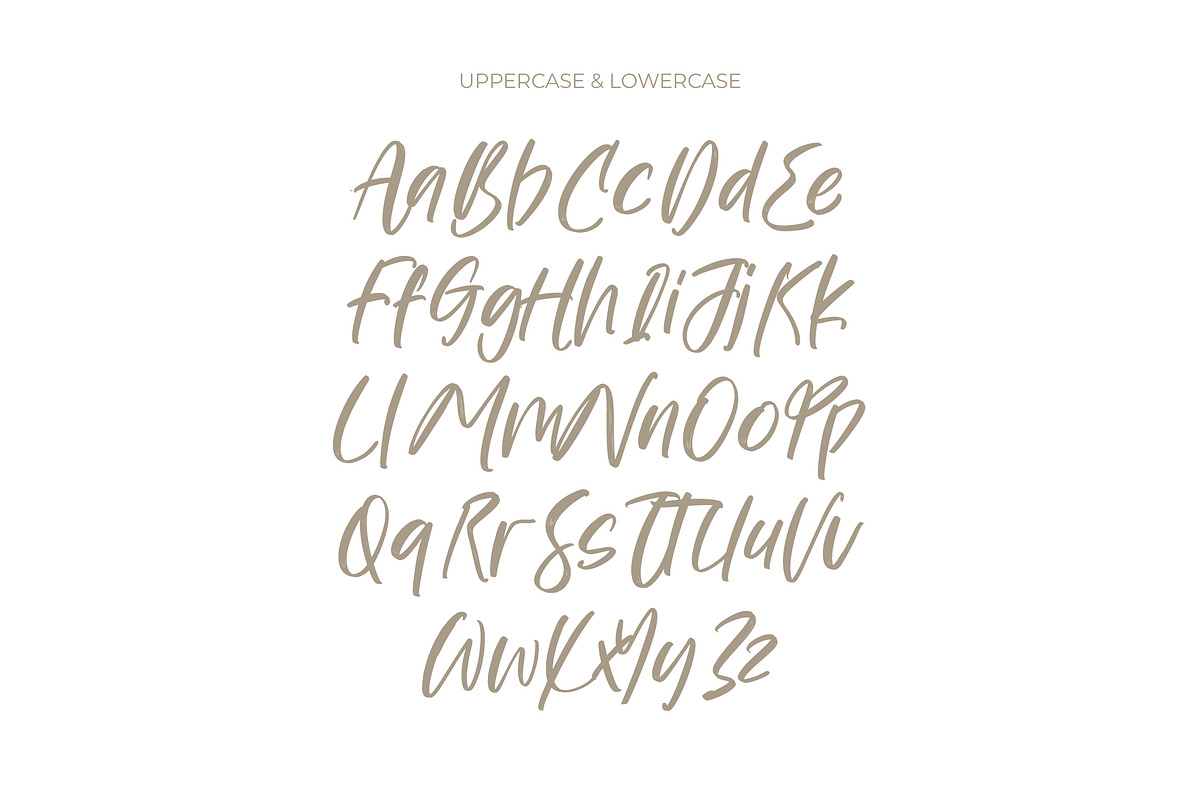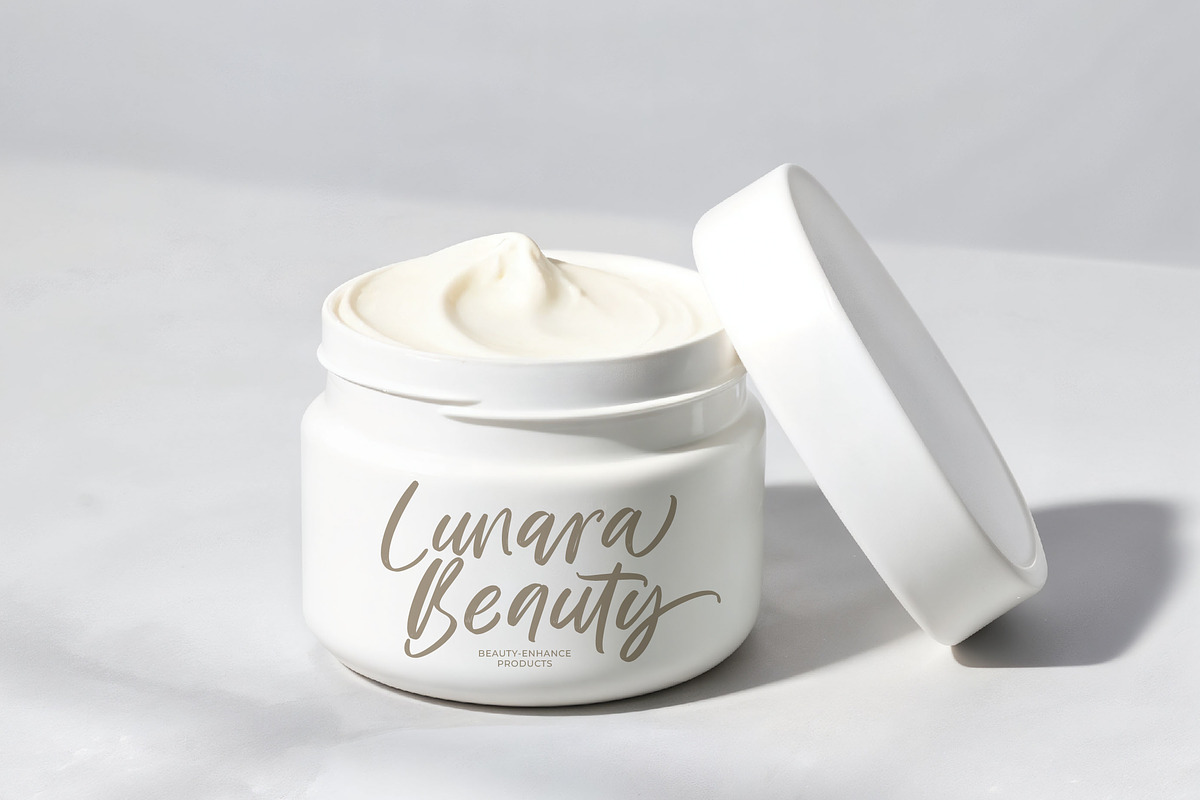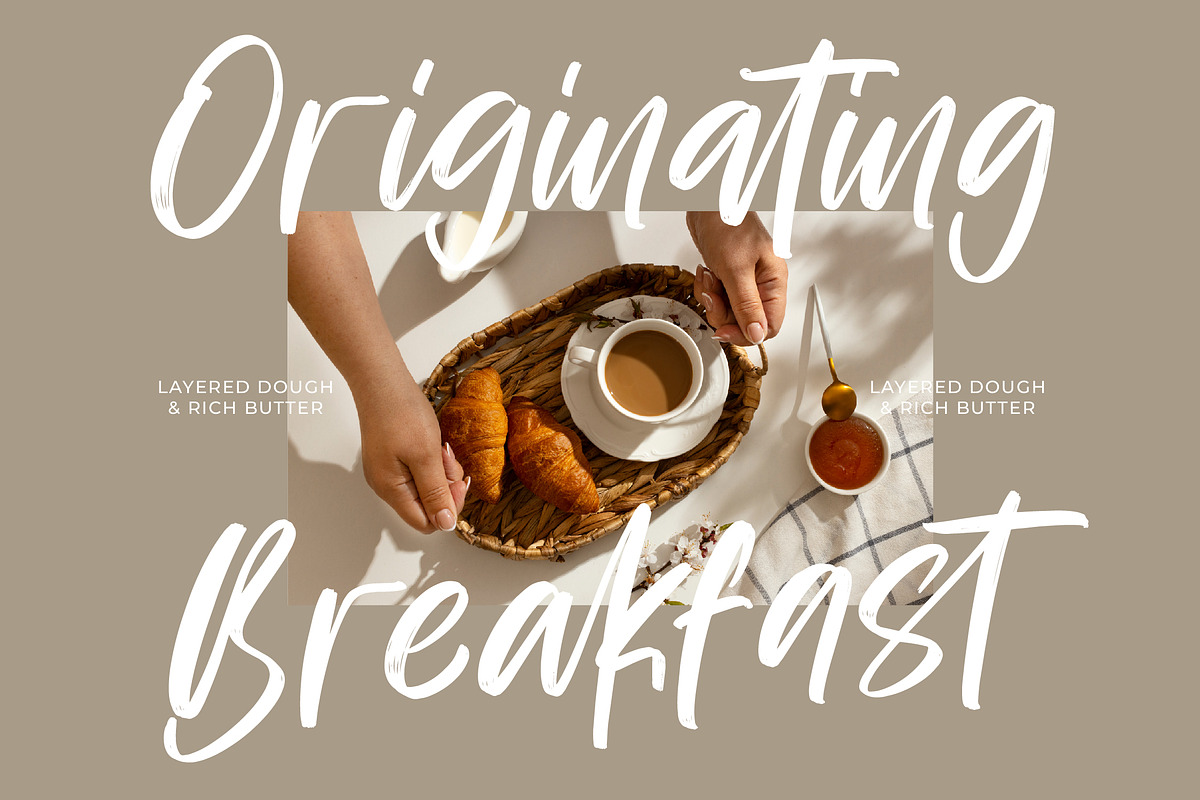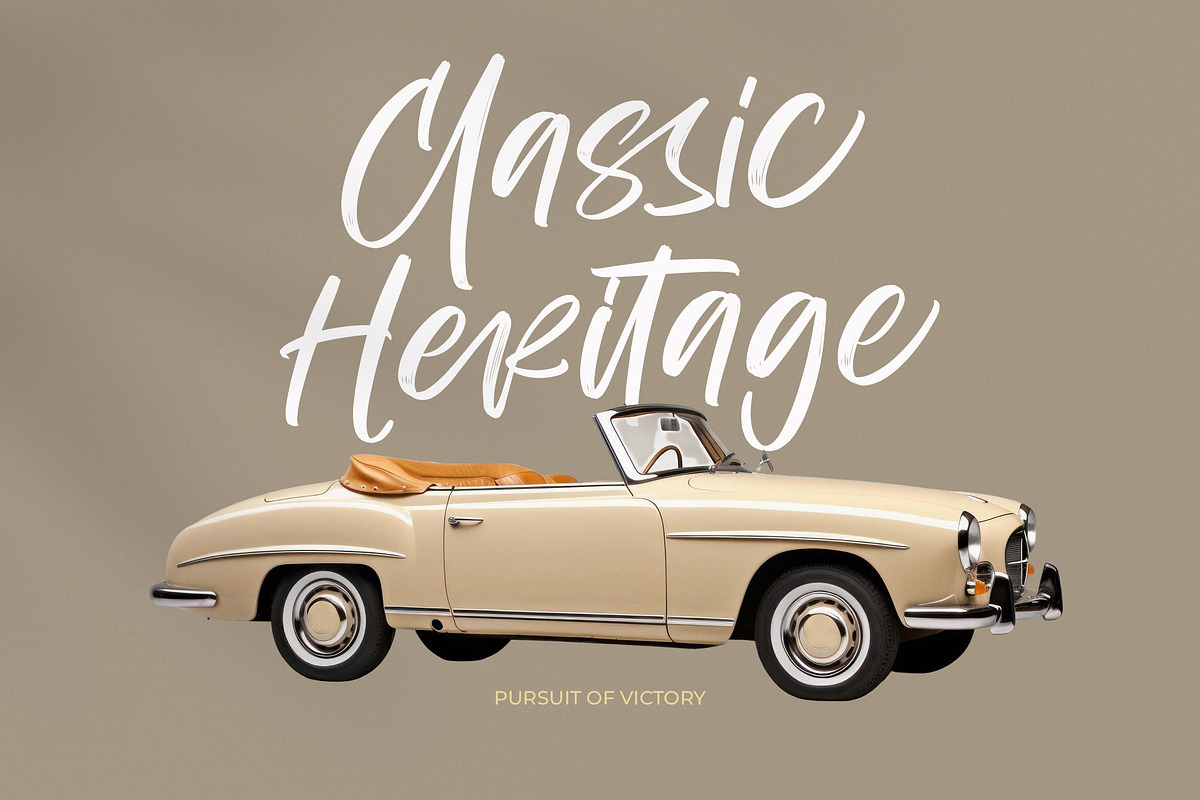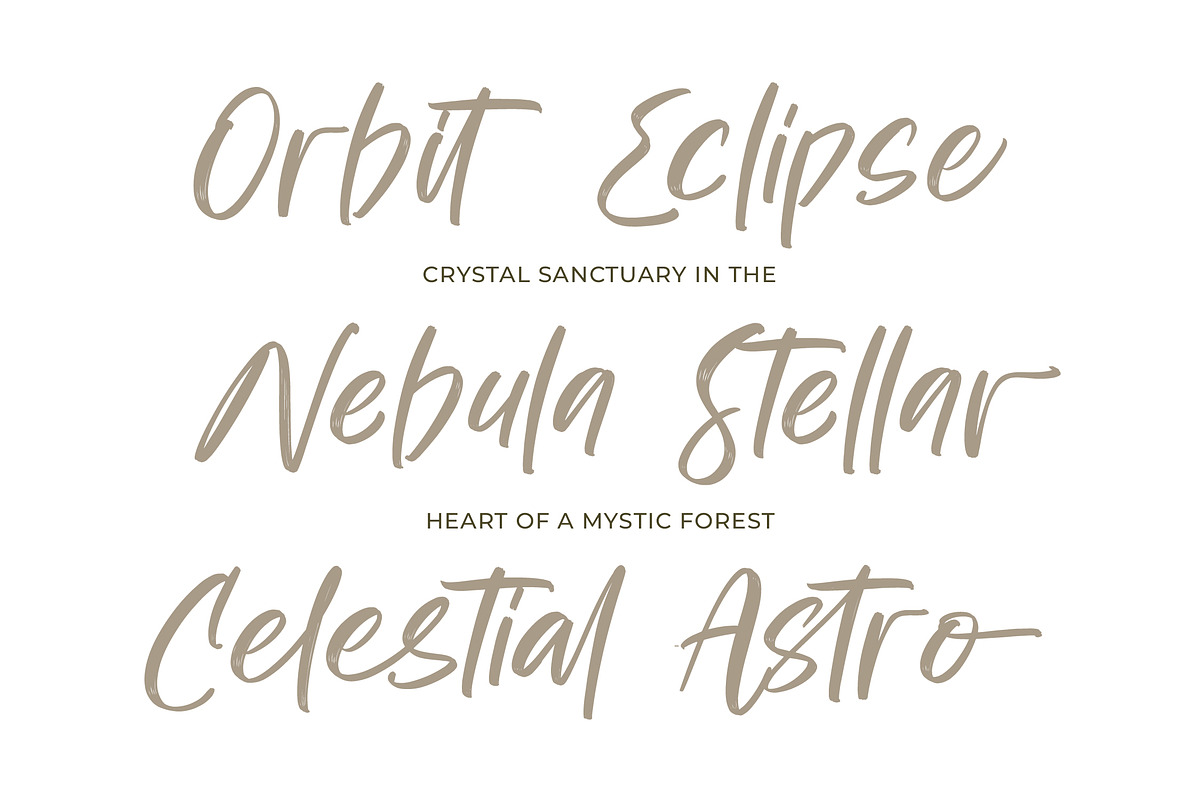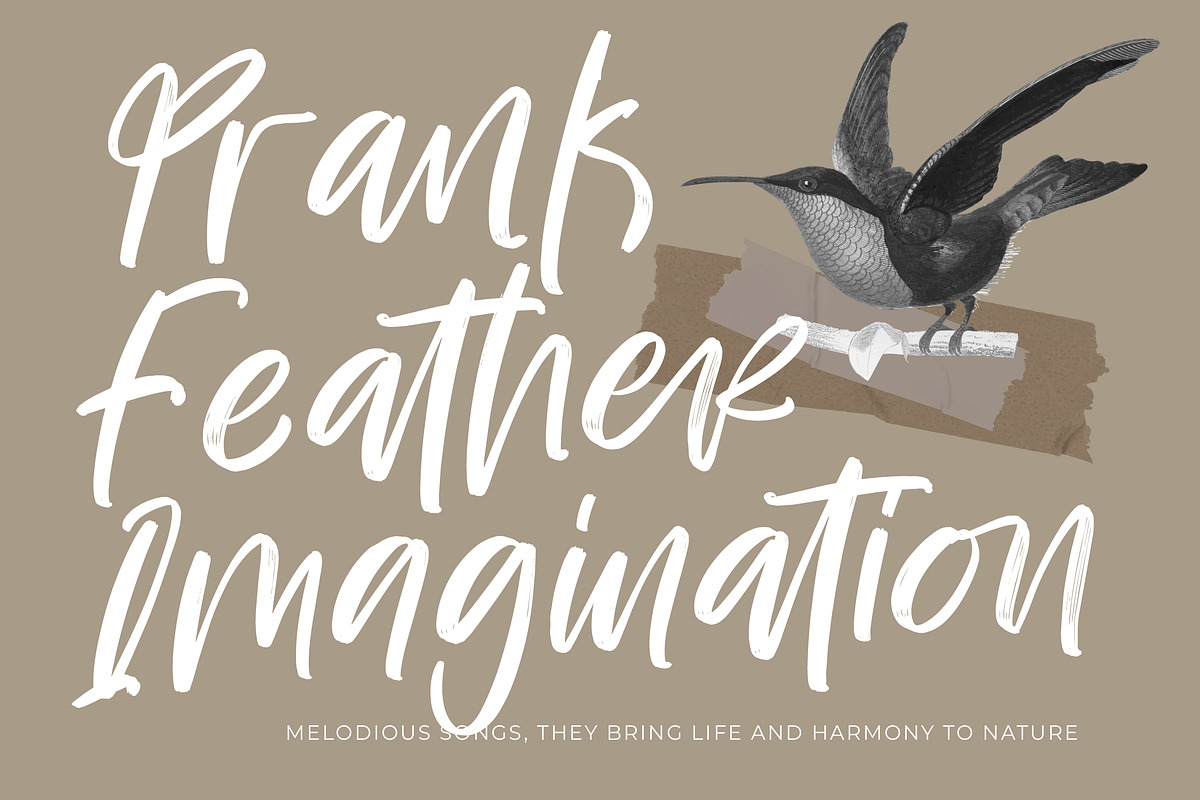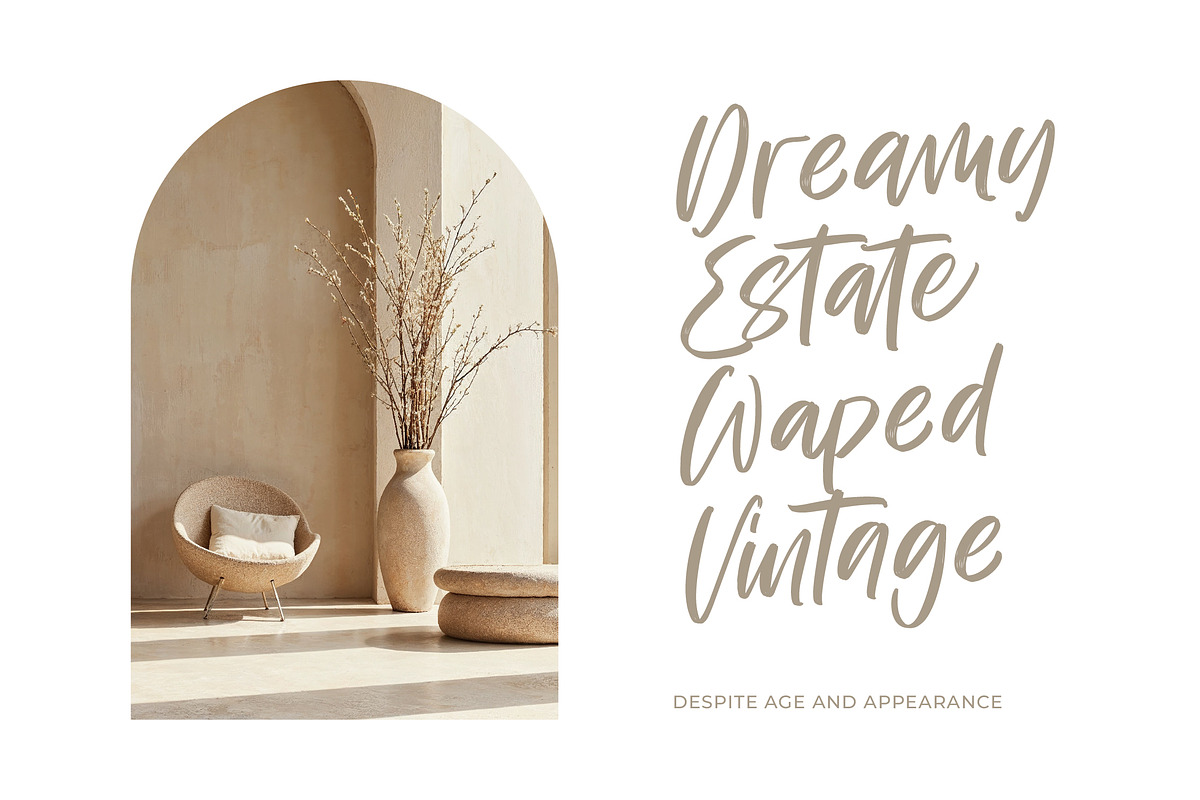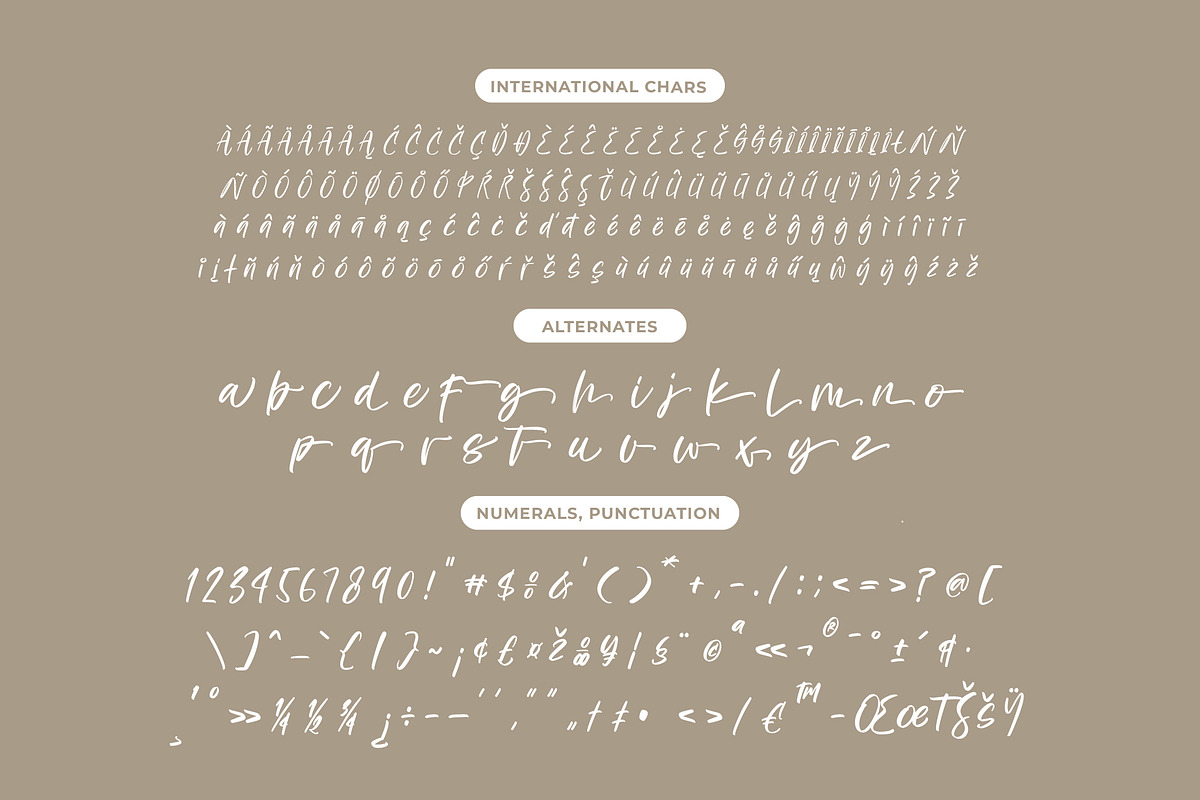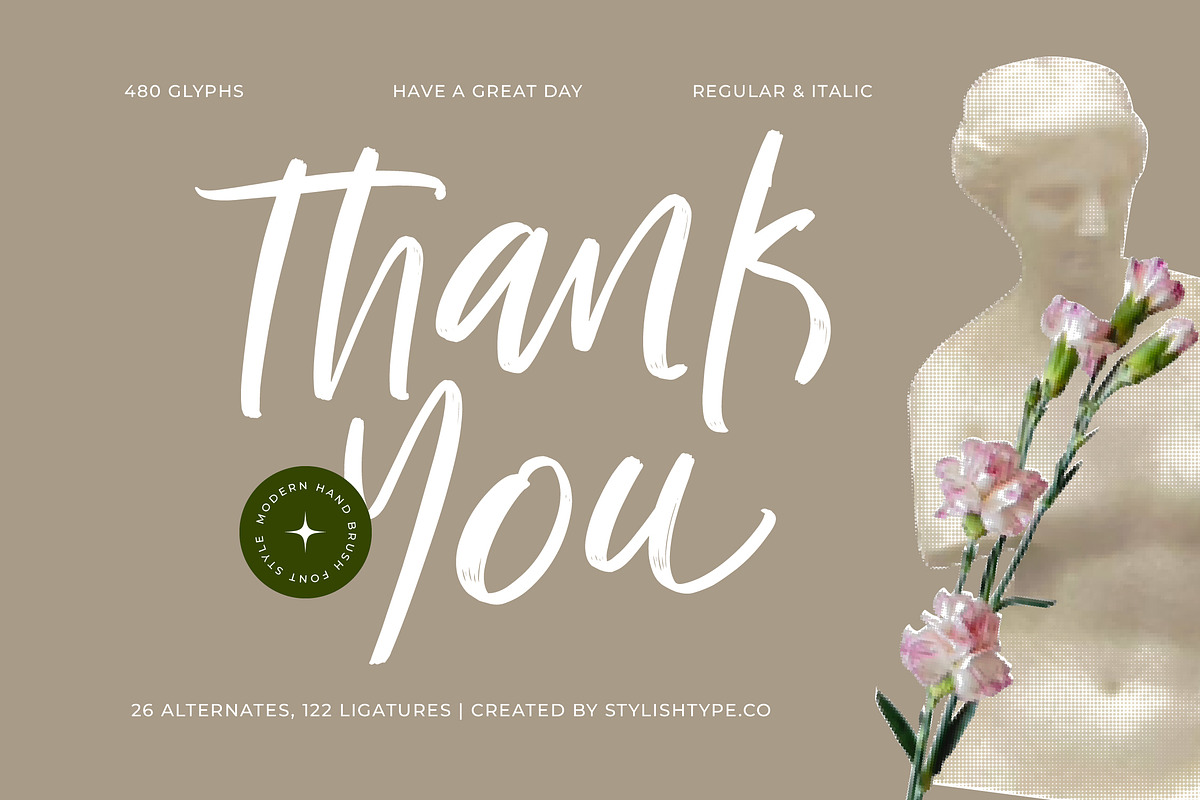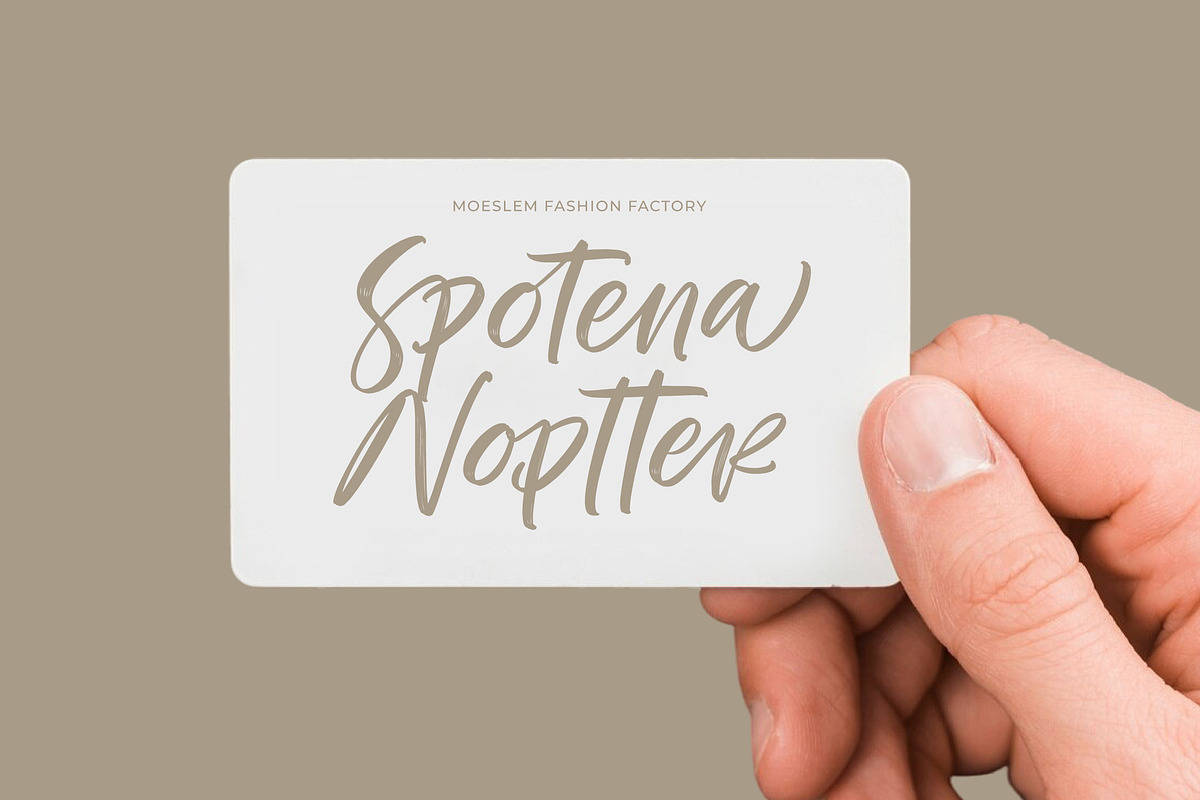
Bestovy Wisher Modern Handbrush Font
Bestovy Wisher - Modern Handbrush Font , from Stylishtype , Suitable for any projects such as: logos, branding projects, homeware designs, product packaging, mugs, quotes, posters, shopping bags, t-shirts, book covers, name card, invitation cards, greeting cards, label, photography, watermark, special events, and all your other luxury and beautiful projects that need a Luxury Script taste.
- 122 Ligature 26 Alternates & Swashes